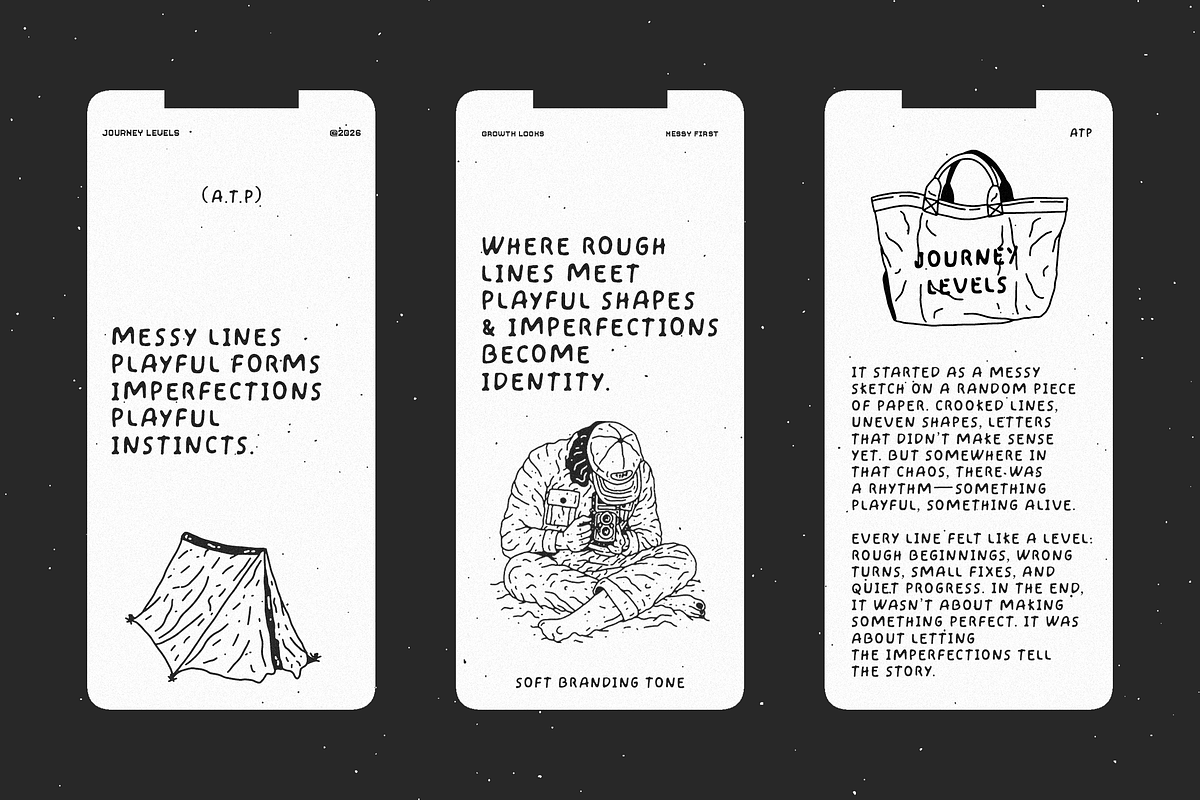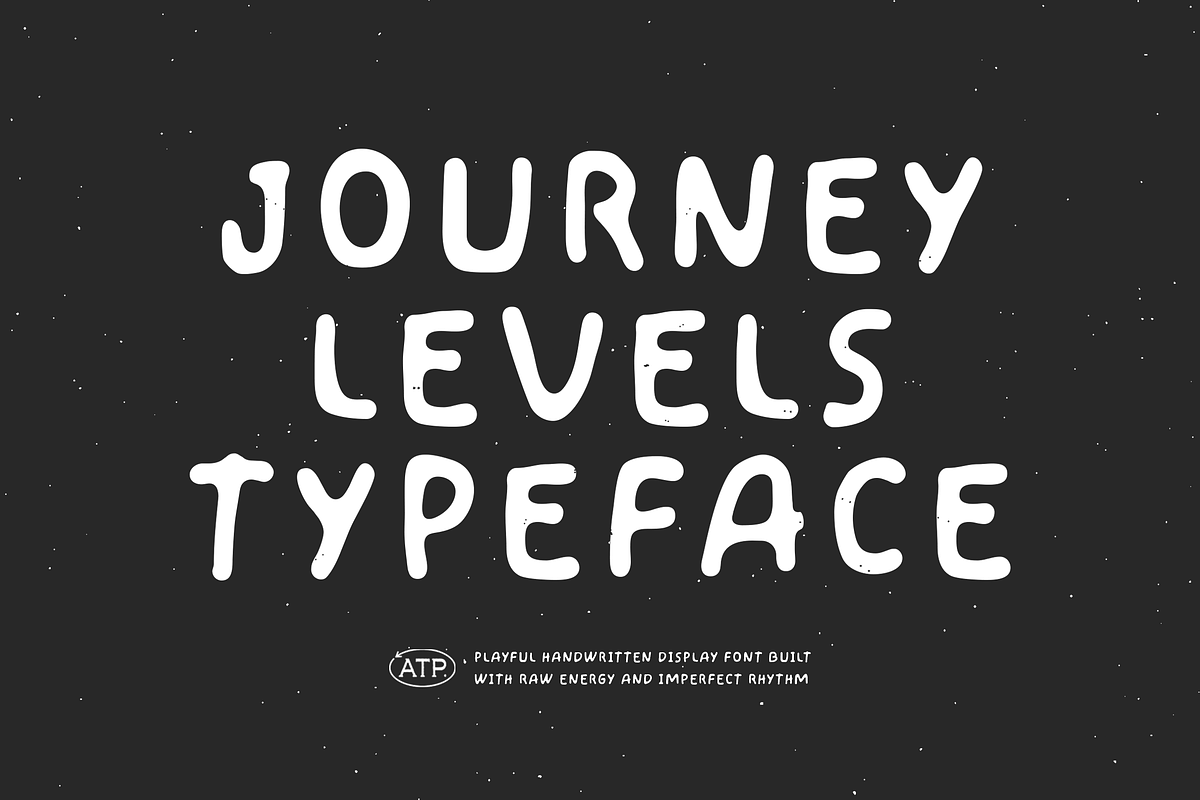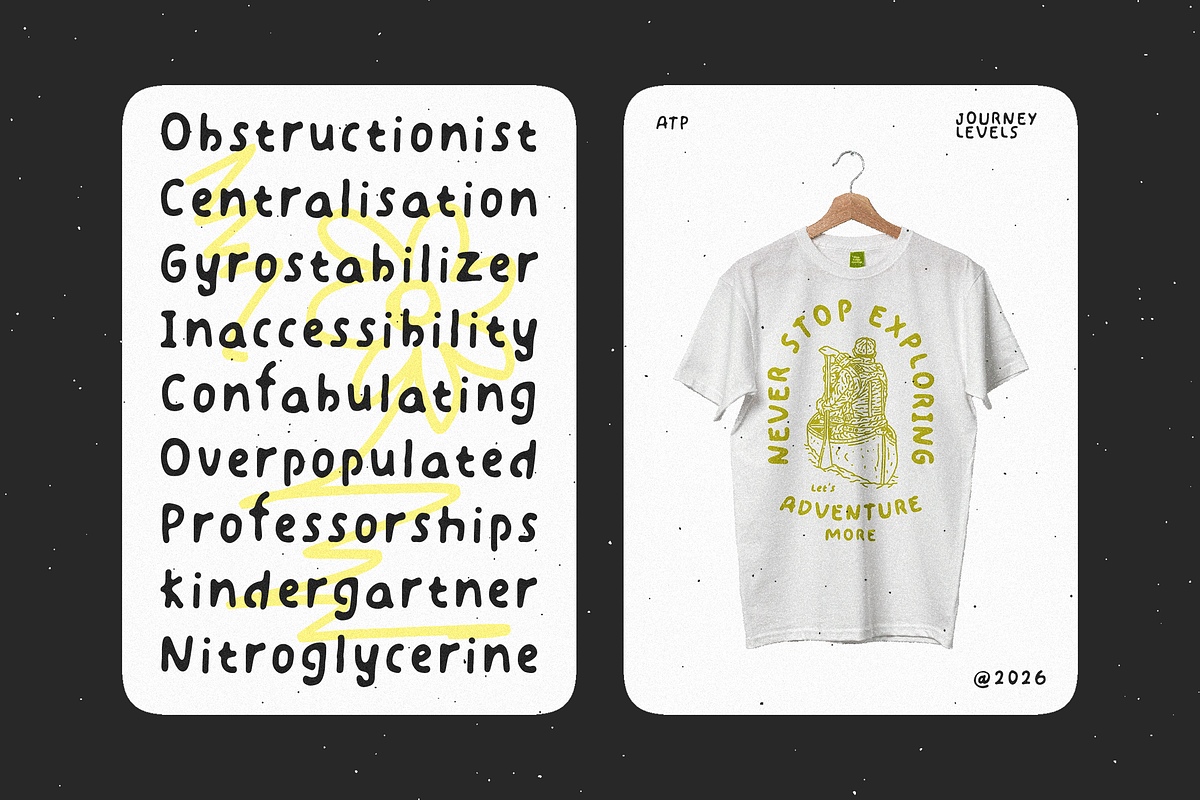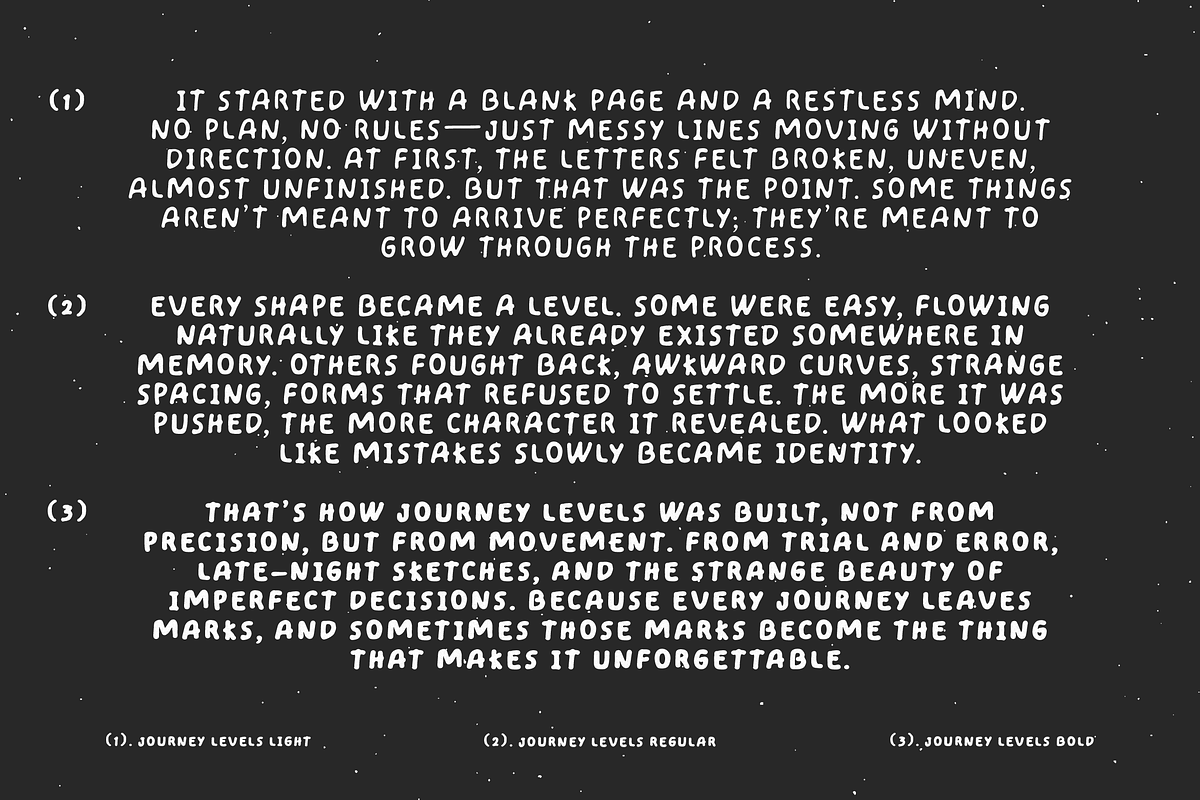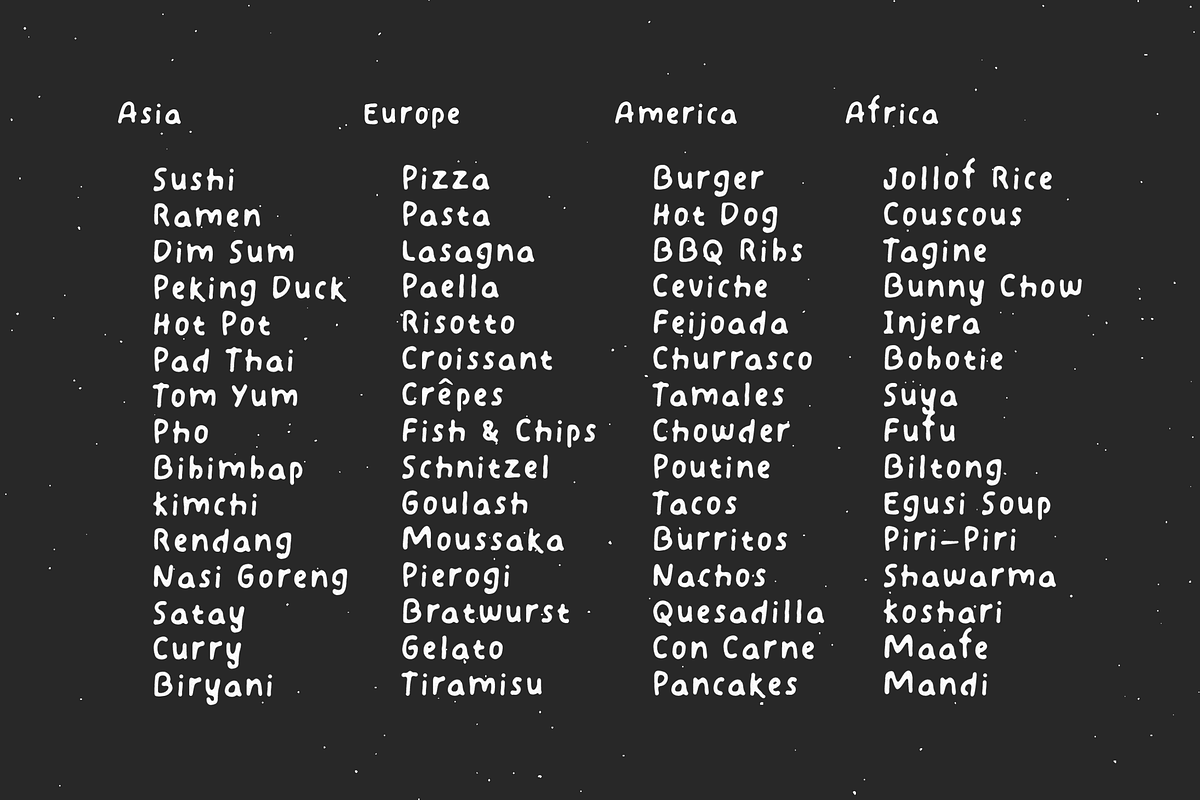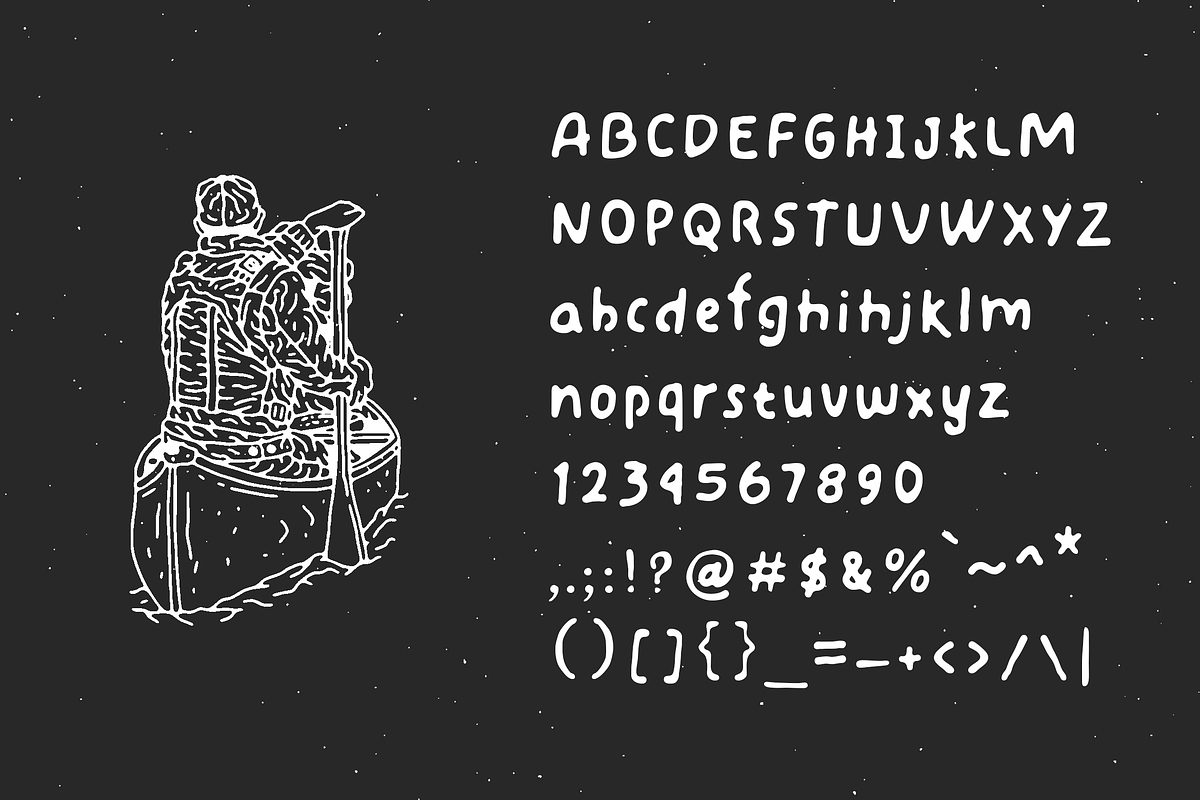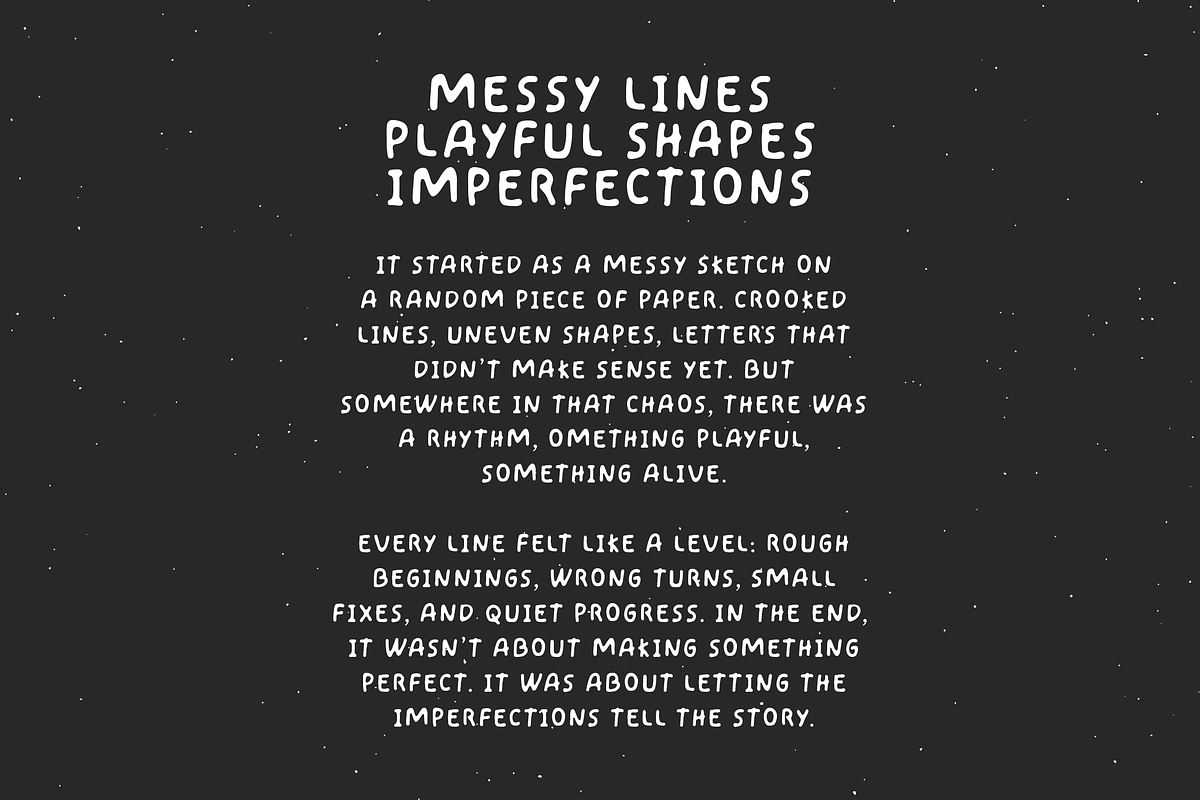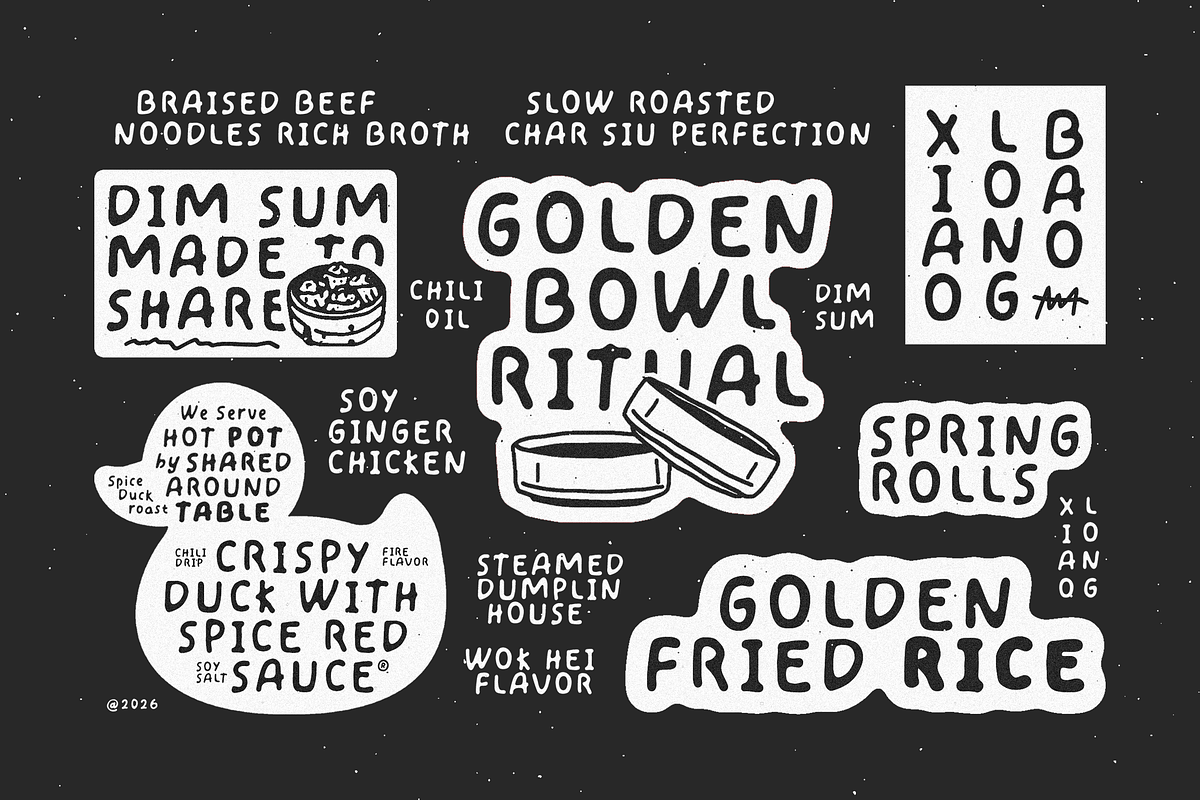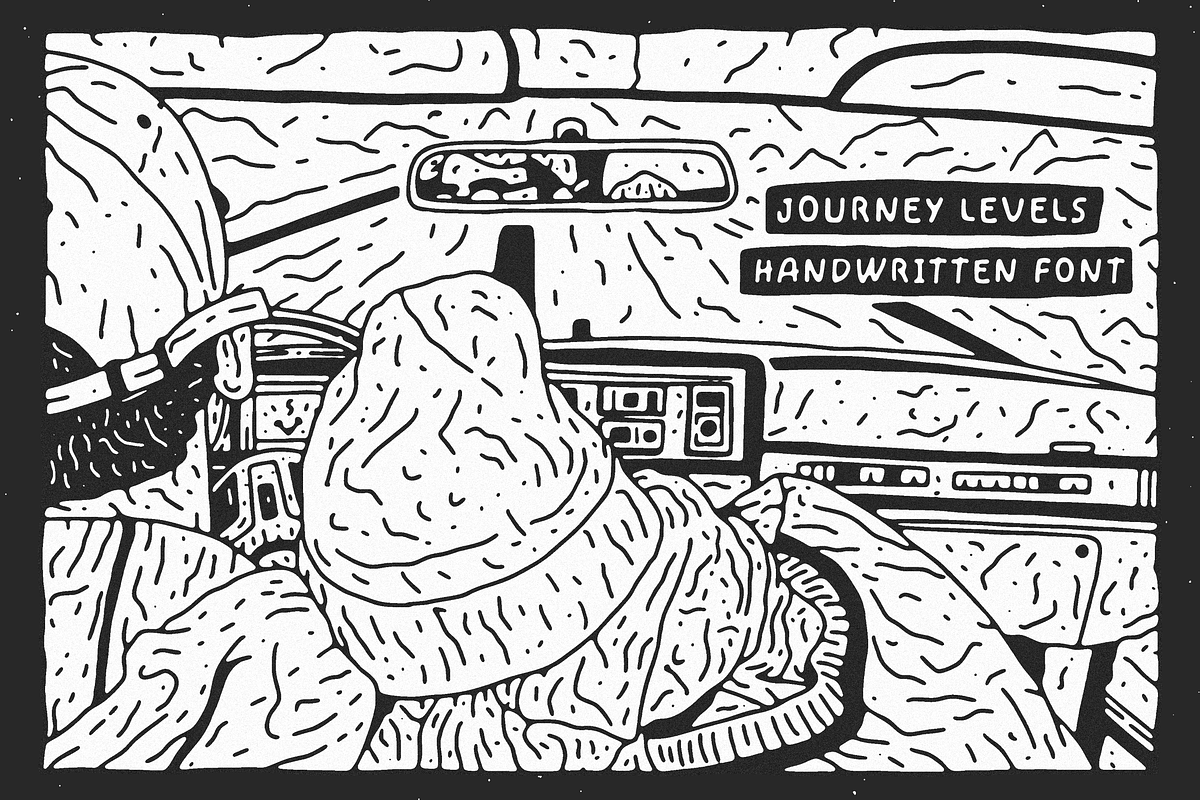
Journey Levels - Handwritten Font
Journey Levels is a playful handmade display font built with raw energy and imperfect rhythm. Each letter carries a natural hand-drawn feel, creating a warm, approachable, and expressive visual voice. Designed with soft curves, rounded edges, and organic inconsistency, this typeface feels alive—like notes from a sketchbook turned into typography.
Perfect for branding, children’s books, posters, packaging, social media graphics, merchandise, and creative editorial layouts, Journey Levels brings personality into every composition. Its casual structure makes it ideal for projects that need authenticity, fun, and a human touch.
Whether you're building a cheerful brand identity or crafting bold playful headlines, this font delivers a balance of simplicity and character that feels effortless and memorable.
Lowercase
Numerics